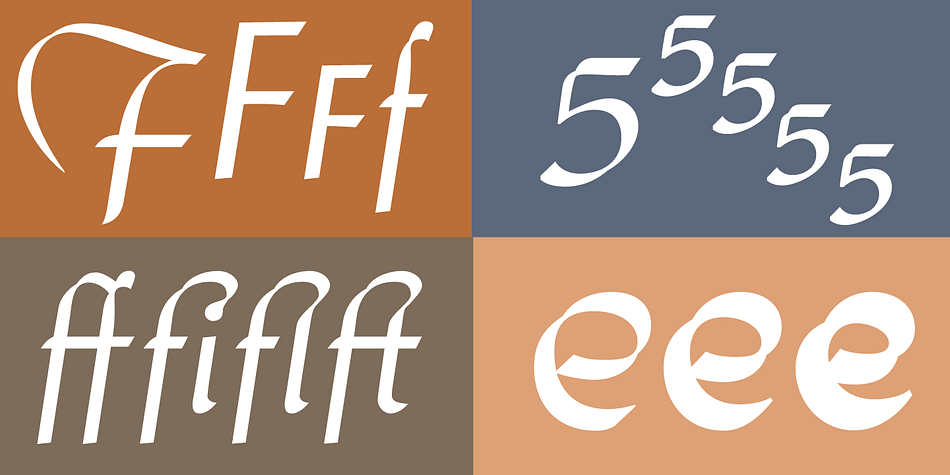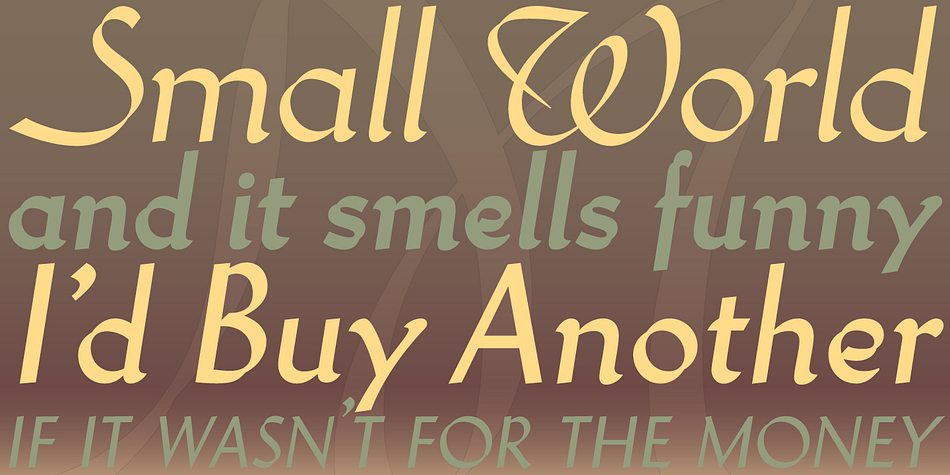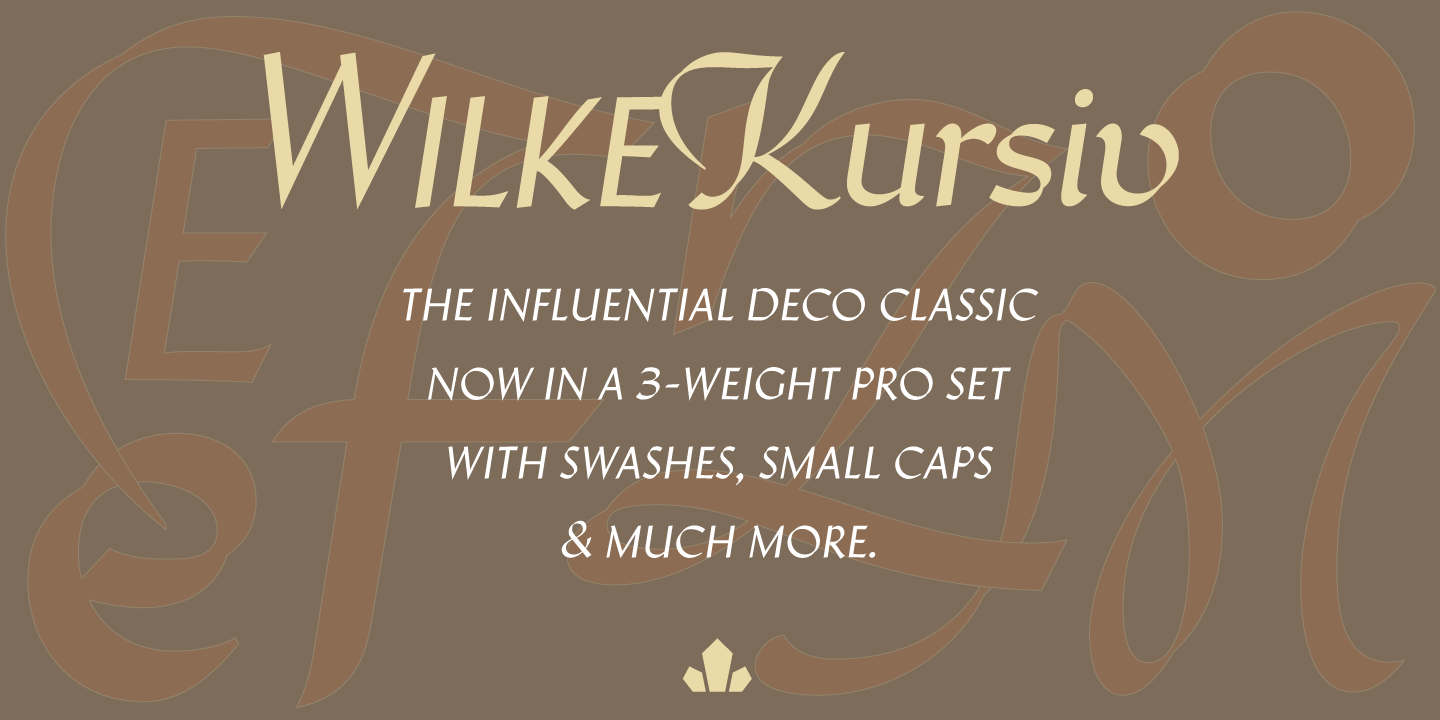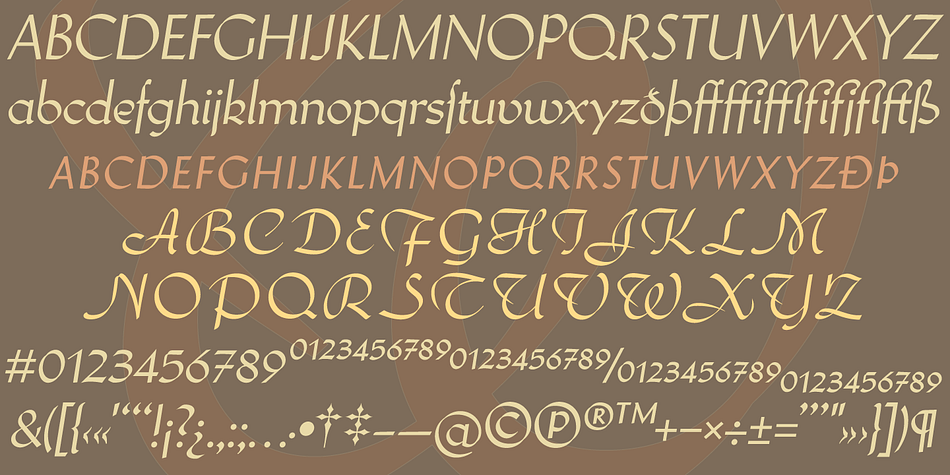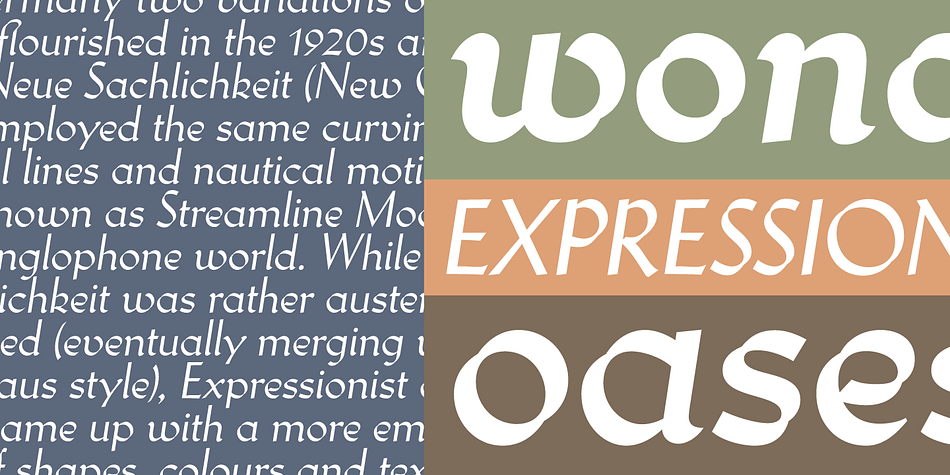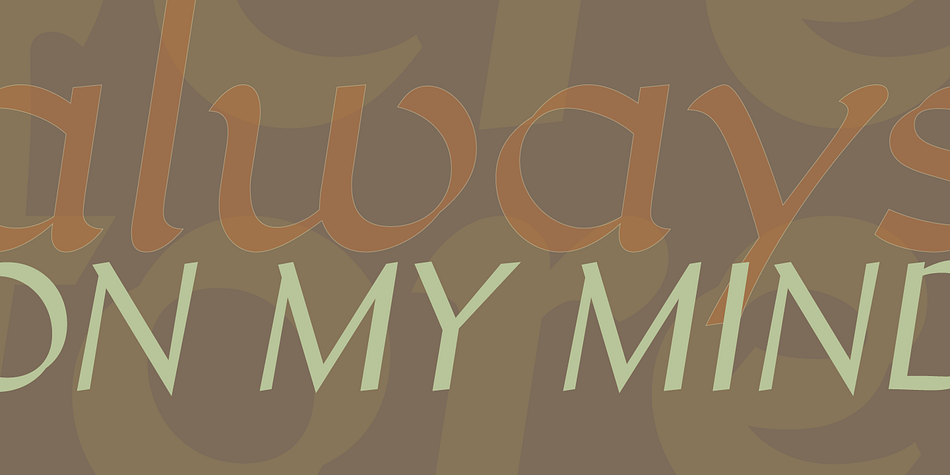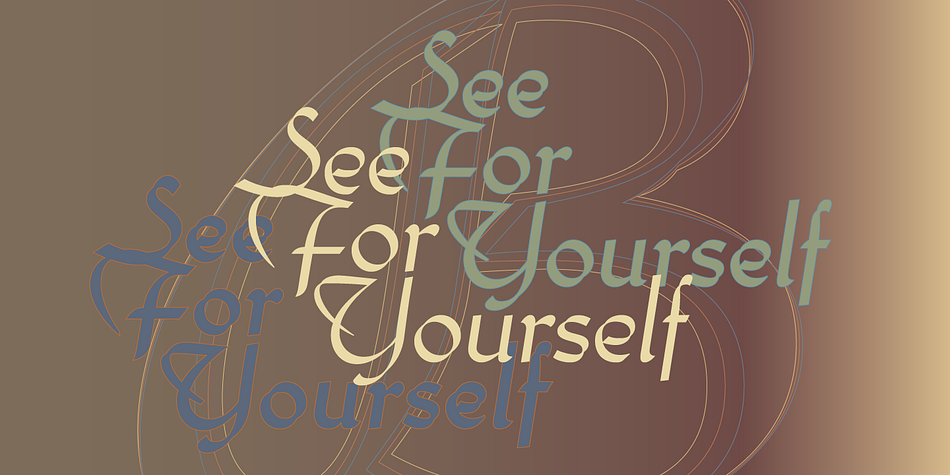
Wilke Kursiv is a display sans font family. This typeface has twelve styles and was published by Canada Type.
Martin Wilke’s underrated yet influential deco classic from 1932 has both feet firmly planted in the high traditions of Western European calligraphy while carefully and subtly introducing some traits from the sweeping geometric/minimalist vision of the time. In a way, it was one the representatives of the European anti-type typefaces of that era, when print media was searching for the elusive aesthetic balance between humanism and geometry. This typeface enjoyed some popularity in Germany for a few years, and went on to influence further type designs in Holland and Italy. After the second World War, the black hole that swallowed a big chunk of Europe’s print culture, new influences and technologies overtook the scene, and selective historical emphasis ensued, highlighting some of the era’s designs and overlooking others. Further selective picking in the digital era all but buried Wilke’s body of work - unfairly so, because he was just as important in German type history as Bernhard, Post, Schneidler, Tiemann and Trump.
The original metal Wilke Kursiv came in one weight. This digital version goes a long way in expanding on that original offering. Now Wilke’s masterpiece comes in three weights, and with a full Pro treatment including swash caps, small capitals, five types of figures, automatic fractions, and plenty of other OpenType niceties. Each of the Wilke Kursiv Pro fonts comes with over 700 characters, and contains support for most Latin-based languages. Also available are three non-Pro fonts in each weight.